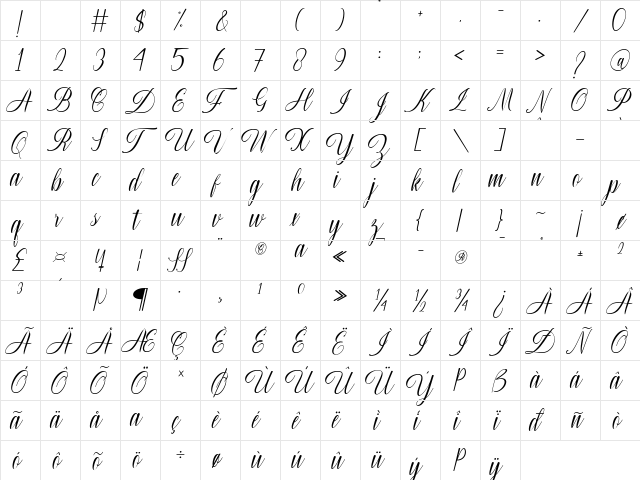
Cherlynda Regular
| Designer | Muhamad Fikry Nuralif |
Design Context for Cherlynda Typeface
Cherlynda is a composed and adaptable typeface that performs quietly and consistently across a wide range of design contexts.